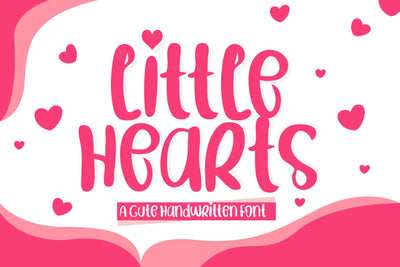
Litle Hearts
Little Hearts is a dainty and chic handwritten font. Warm, romantic and jolly, this font will turn each of your project ideas into real works of art. Have fun with this beautiful font and explore its endless variations.